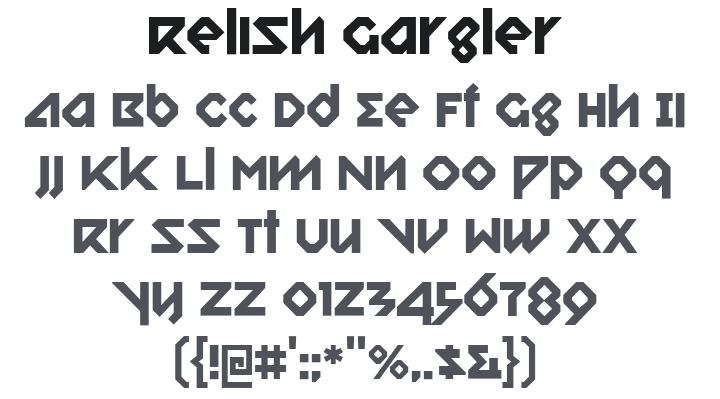
Relish Gargler Font
About Relish Gargler
Relish Gargler is a sharp-cornered, angular techno display typeface inspired by vintage video game cabinet artwork — bold, aggressive letterforms with knife-like edges that radiate the raw, electric energy of a 1980s arcade hall. Its commanding presence makes every headline feel like a high-score announcement. Perfect for retro game titles, arcade-themed branding, sci-fi posters, action game graphics, and any design needing loud, unapologetic arcade-era attitude.